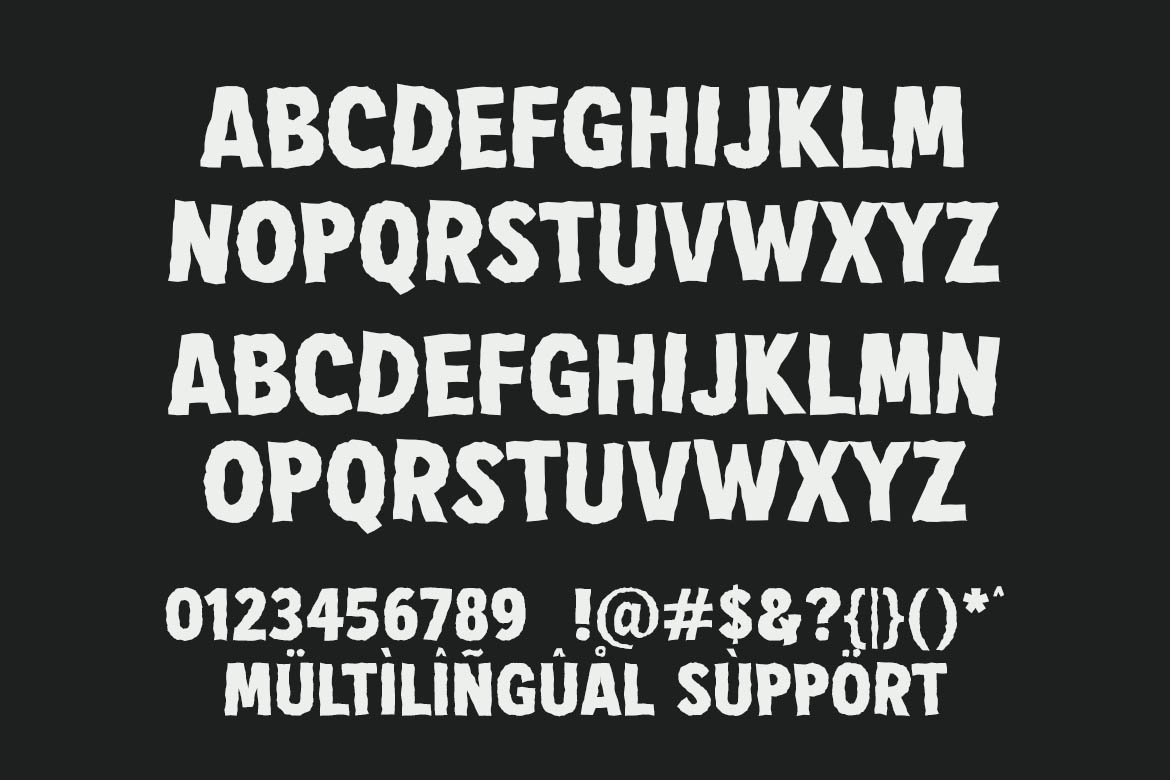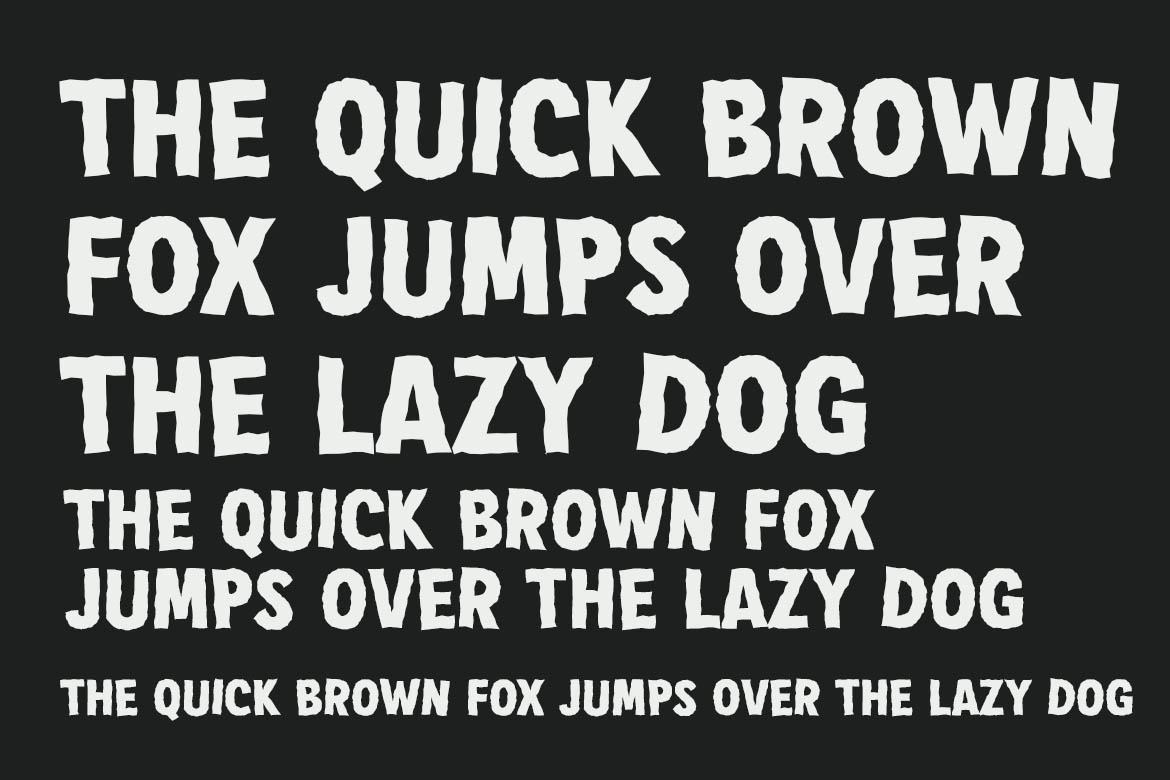
Game Stone
Game Stone is a rugged and bold display font with a powerful, hand-carved stone look. With its raw, jagged edges and heavy weight, this font is perfect for action games, adventure titles, survival posters, fantasy-themed branding, or anything that needs a strong and primal visual impact.
Designed to stand out in bold headlines and impactful logos, Game Stone brings strength and personality to every letter. Use it for YouTube thumbnails, game UI, movie posters, or merchandise that demands attention. Available now on PrimeFont, the ultimate destination for bold, high-quality fonts for creative projects.